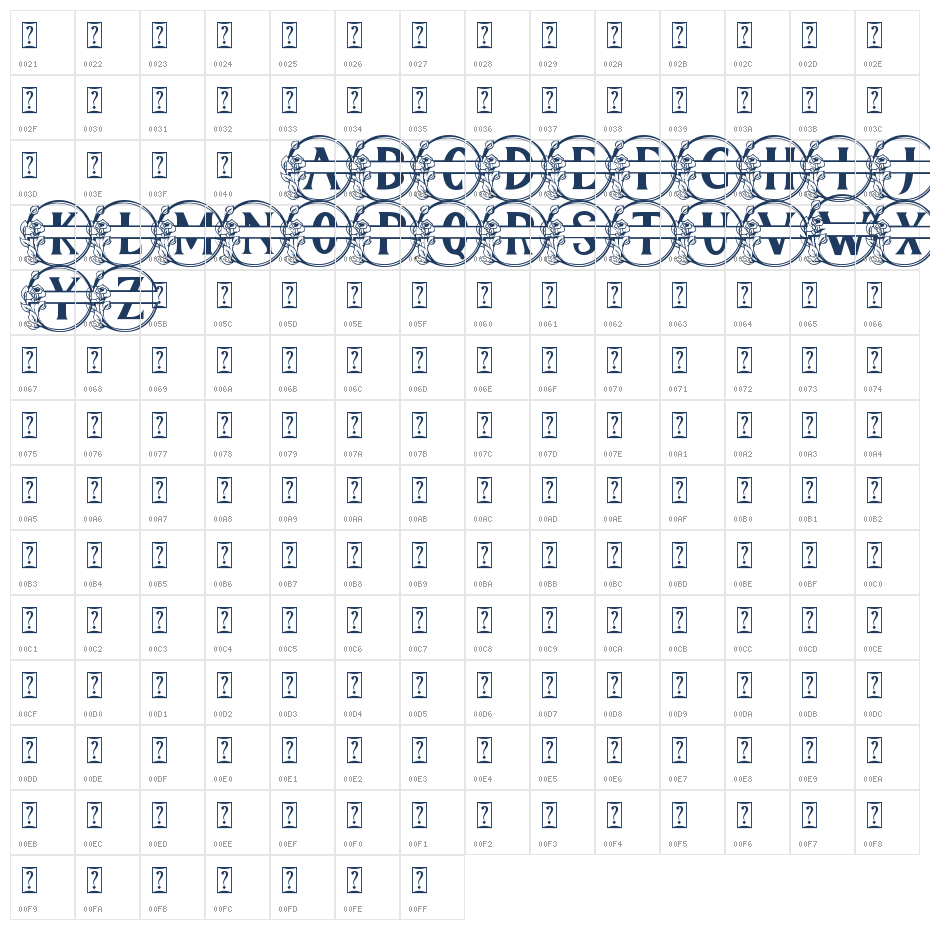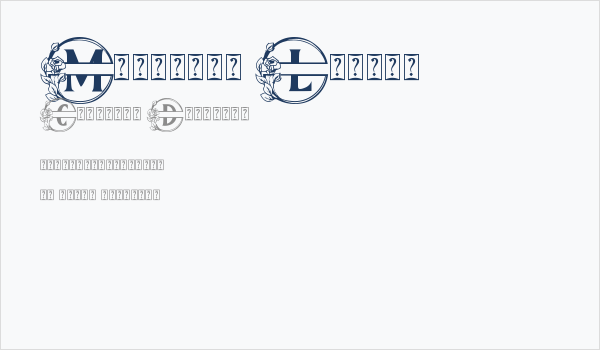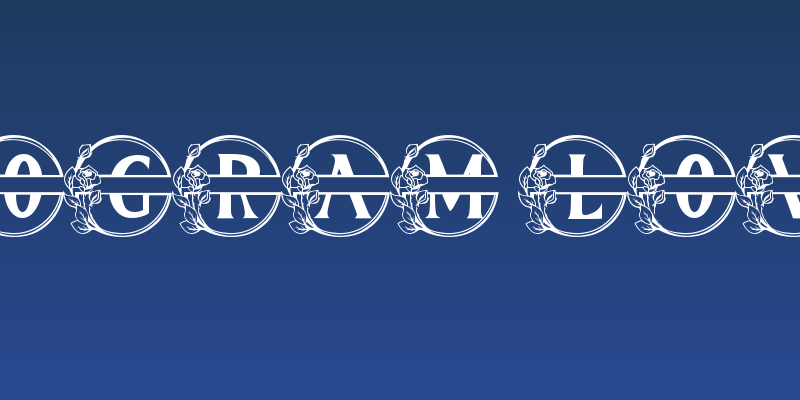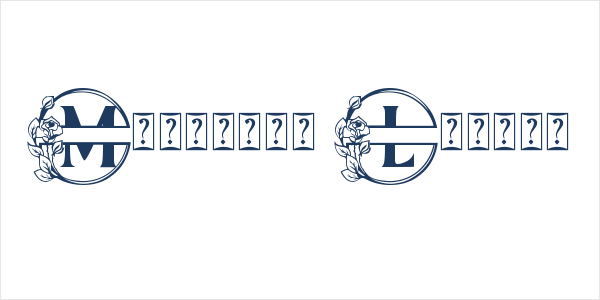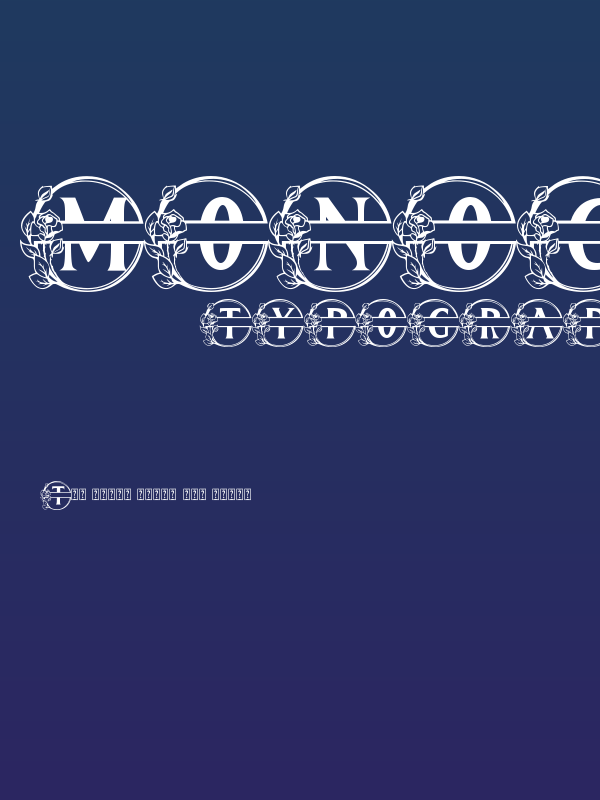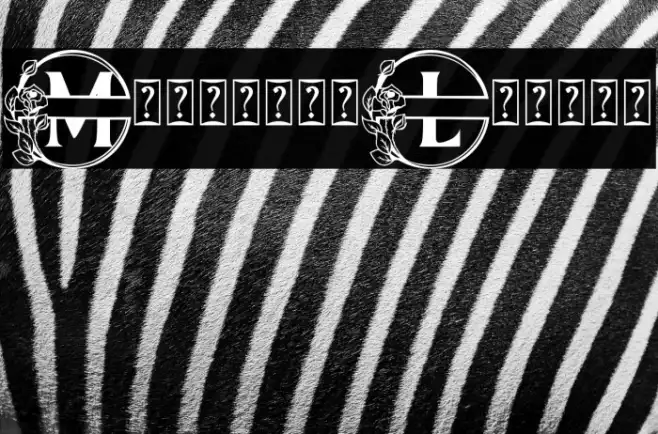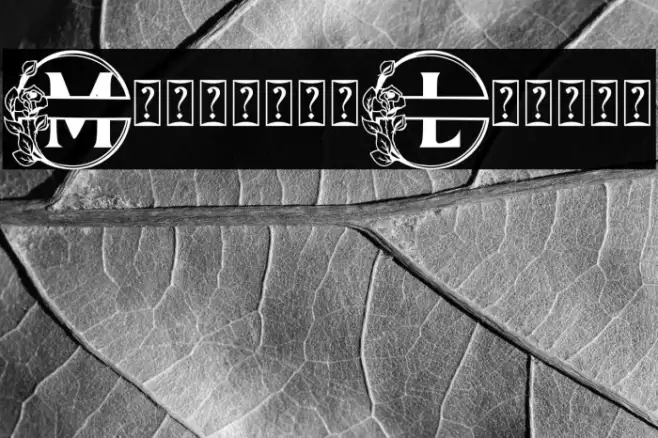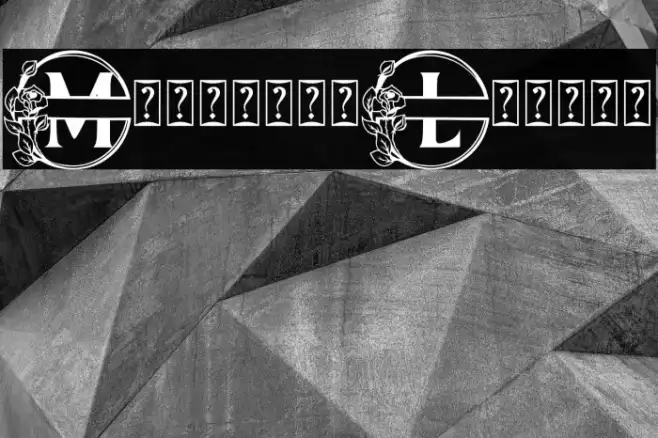
Monogram Lovely Font
Monogram Lovely Description
Decorative serif font with intricate floral and ornamental details around each character, featuring a classic and elegant style.
| Overall Style | Vintage, Ornamental, Elegant |
| Use Case | Headlines, Logos, Invitations, Decorative Text |